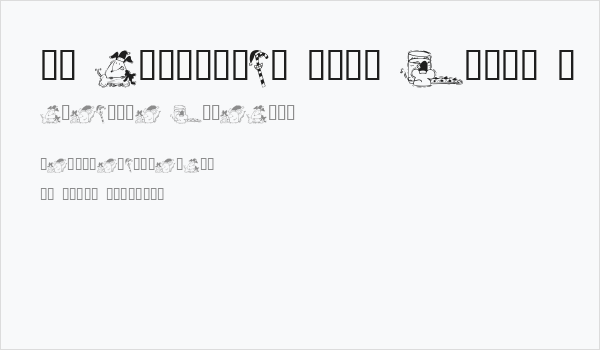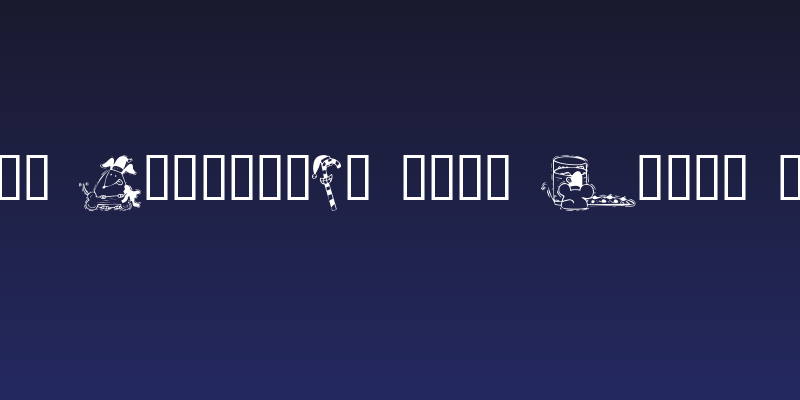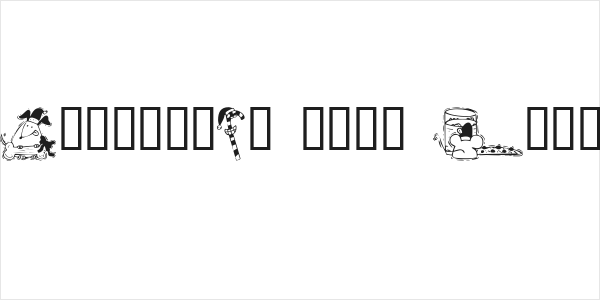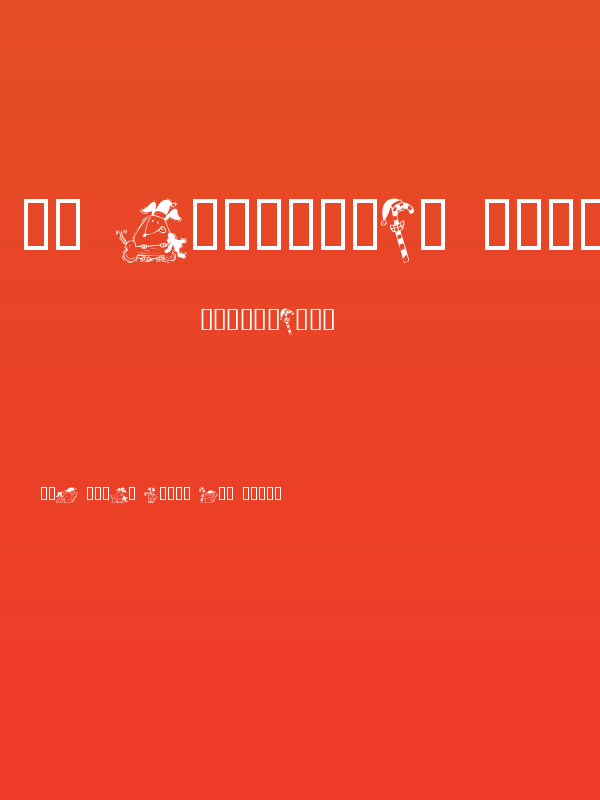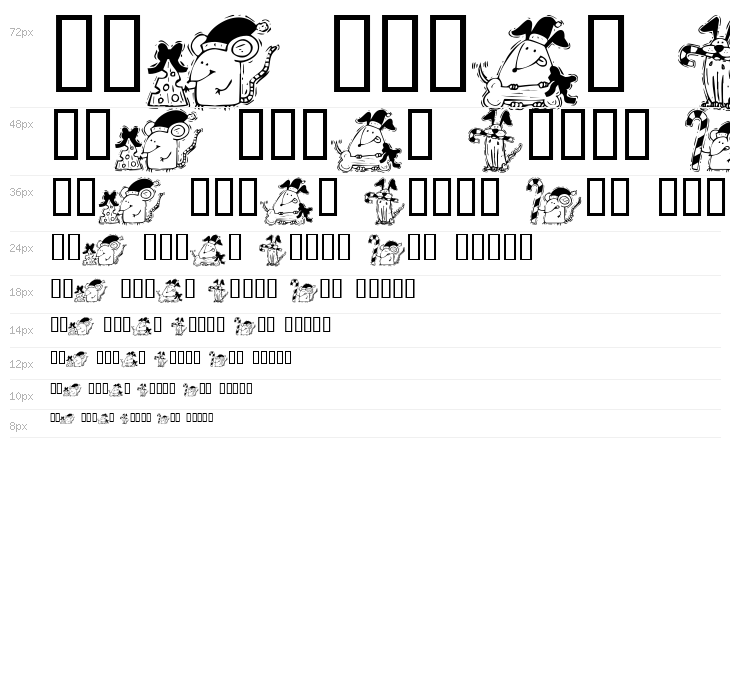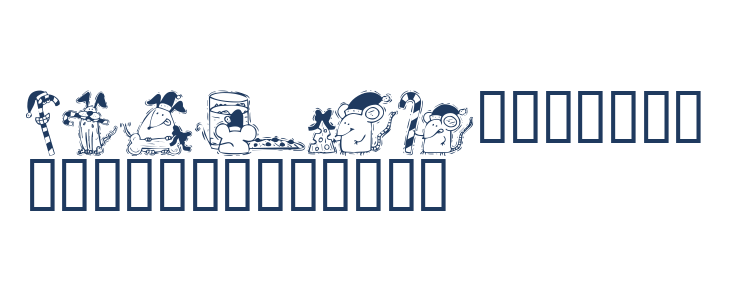
KR Christmas 2002 Dings 3 Font
KR Christmas 2002 Dings 3 Description
This is a decorative font featuring whimsical Christmas-themed illustrations. Each character is represented by a playful design, incorporating elements such as candy canes, Santa hats, and festive animals. The style is cartoonish and light-hearted, making it ideal for holiday-themed projects. The characters are detailed and expressive, capturing the joyful spirit of the season. The font is not intended for traditional text but rather for decorative purposes, adding a unique and festive touch to any design.
| Use Case | Logos, Decorative elements |
| Proposed Projects | Ideal for holiday cards, festive invitations, Christmas-themed posters, and decorative elements in seasonal marketing materials. |